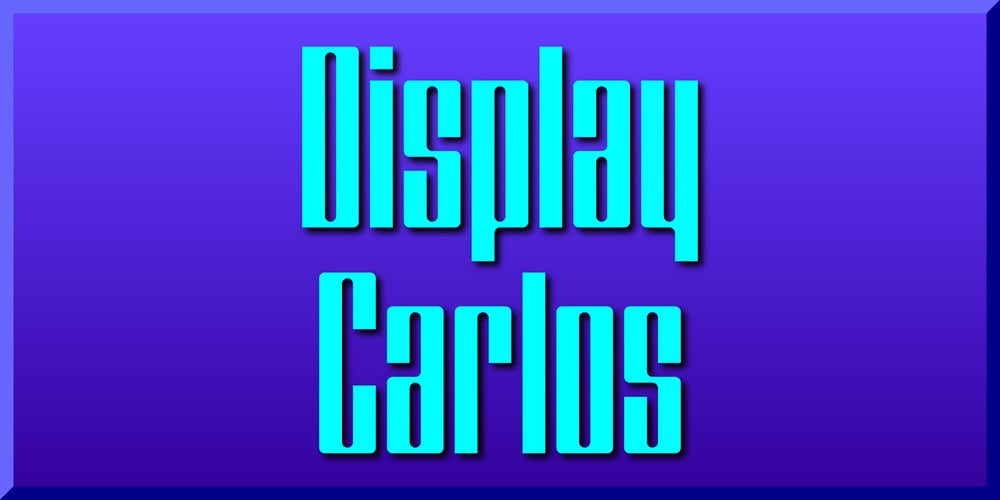
Display Carlos
Display Carlos font
Display Carlos Font Family was designed by Gerald Gallo and published by Gerald Gallo. Display Carlos contains 1 styles and family package options. Display Carlos is a display font not intended for text use. It was designed specifically for display, headline, logotype, branding, and similar applications. There are numbers and punctuation located under their respective keys.